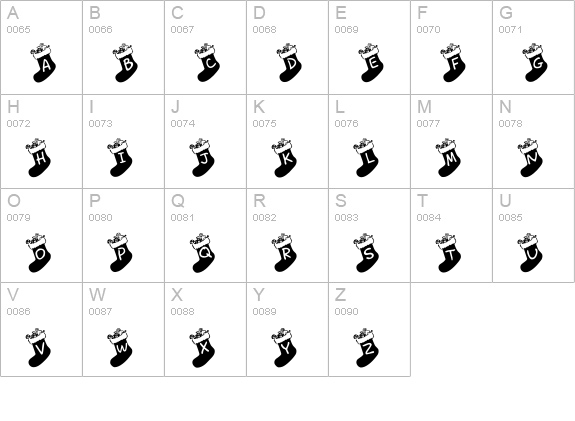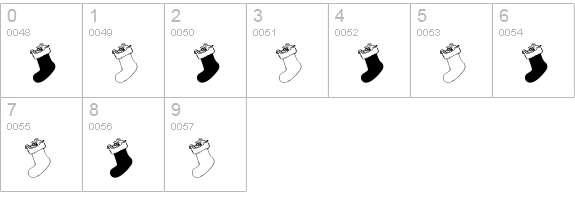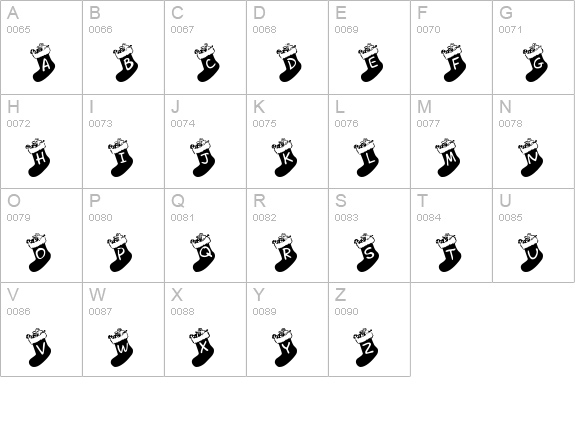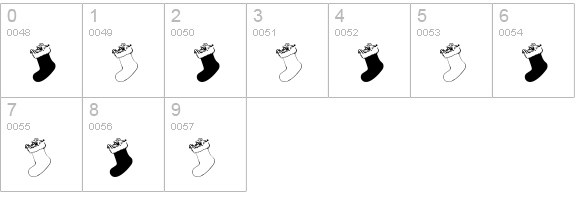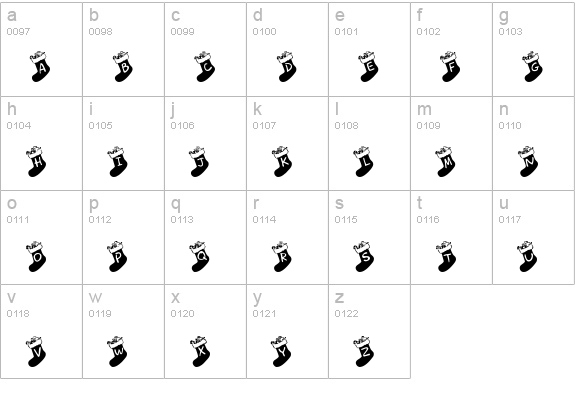
Chausettes de Noel Font Details
Chausettes de Noel font is a charming and whimsical typeface perfect for adding a touch of holiday cheer to your designs. With its playful and festive appearance, this font is sure to bring a smile to anyone who sees it. The elegant and ornate letterforms are reminiscent of traditional Christmas stockings, making it an ideal choice for seasonal projects and decorations. What's even better is that Chausettes de Noel font is available for free download at FontsMarket.com. This means you can easily add this delightful font to your collection without any cost, allowing you to spread joy and merriment in your designs without breaking the bank. Whether you're creating holiday cards, gift tags, or festive posters, Chausettes de Noel font is sure to add a touch of magic to your creations. Download it today and let your imagination run wild with this beautiful and freely available typeface.